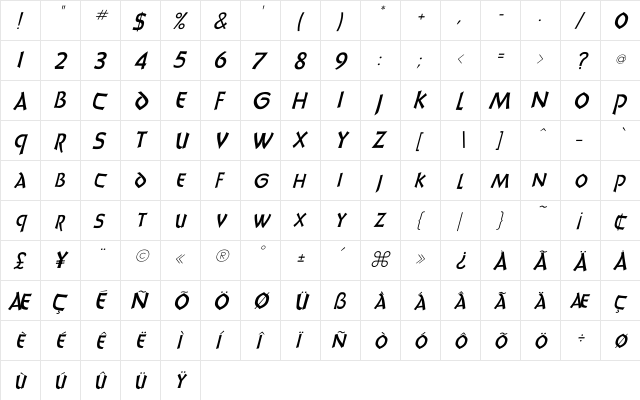
UnciaDis Italic Regular
Design Context for UnciaDis Italic Typeface
UnciaDis Italic takes a measured approach to typography — its balanced proportions and neutral character make it a reliable workhorse for both digital and print work. The dynamic lean of this cut emphasises speed and emphasis in any layout.
Pro Tip: Try UnciaDis Italic for annotation and caption copy alongside an upright companion — the contrast in angle creates a dynamic but ordered typographic system.